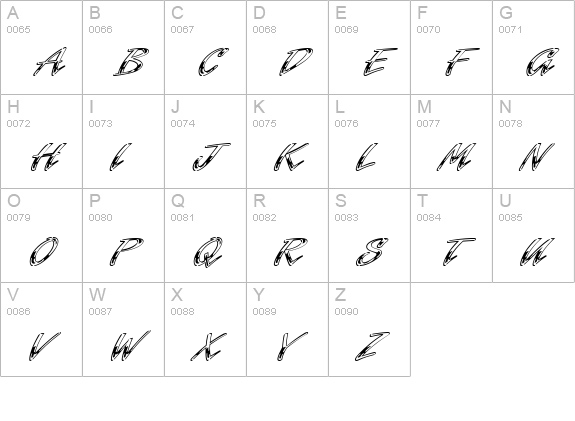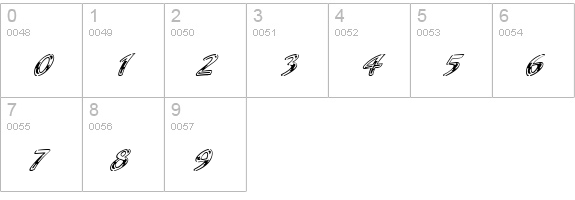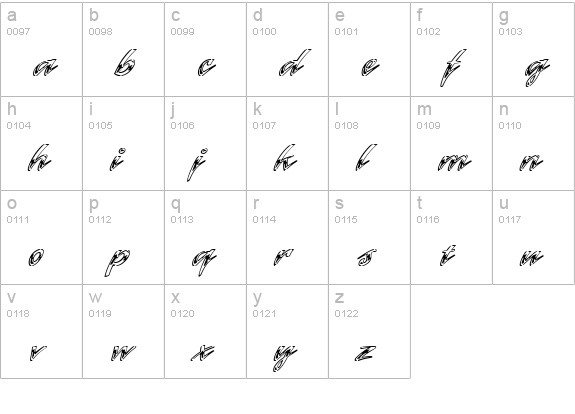
Introducing the mesmerizing Laser ICG Chrome font, a stunning display typeface that will captivate your audience with its sleek and futuristic design. This cutting-edge font is perfect for creating eye-catching headlines, logos, and signage that demand attention. The Laser ICG Chrome font combines bold lines and sharp angles, giving it a distinctively modern and edgy look. Its polished chrome finish adds a touch of elegance, making it ideal for projects that require a touch of sophistication. What makes Laser ICG Chrome font even more impressive is the fact that it is available for free! Yes, you heard it right, this remarkable font can be downloaded at no cost from FontsMarket.com. Now you can effortlessly elevate your designs without breaking the bank. Whether you're a graphic designer, a branding enthusiast, or simply someone who appreciates exceptional typography, Laser ICG Chrome font is a must-have in your font collection. Its versatility allows it to shine in a variety of creative projects, such as posters, website headers, and packaging designs. So why wait? Enhance your designs with the remarkable Laser ICG Chrome font today. Visit FontsMarket.com and download this incredible font for free. Unleash your creativity and make a lasting impression with this truly remarkable typeface.